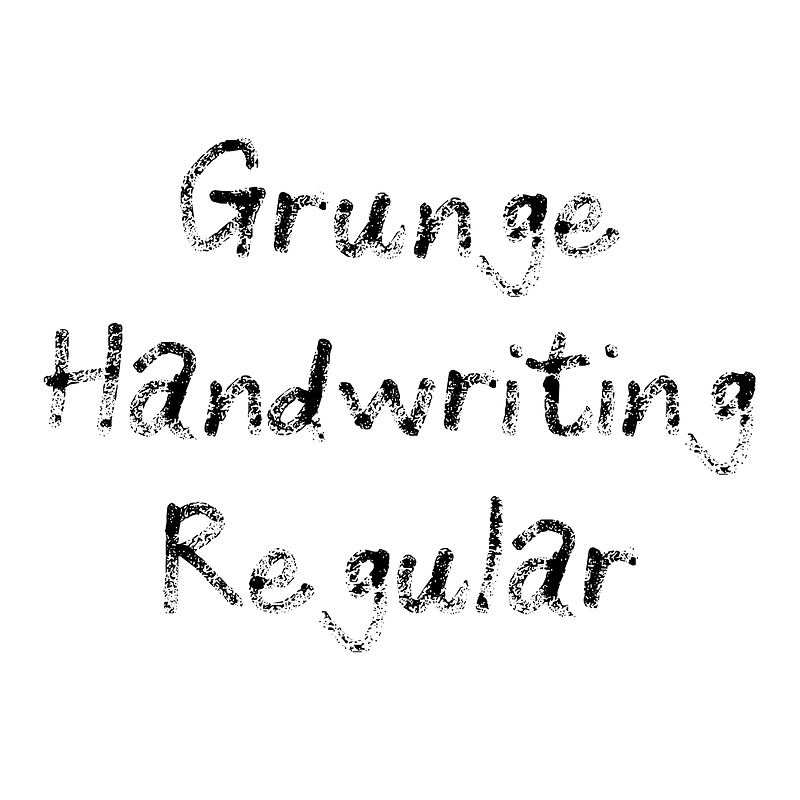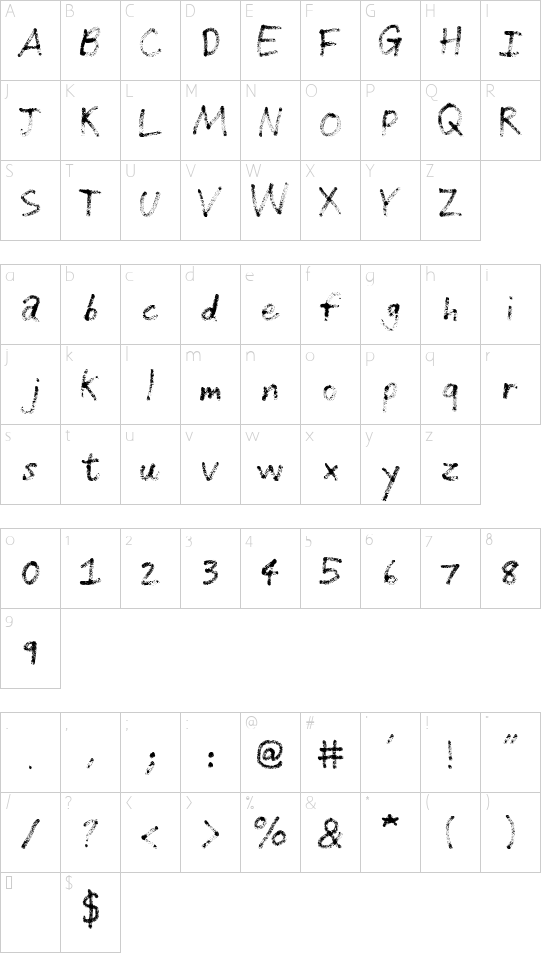
Grunge Handwriting Font . Web these grunge fonts have that dirty, filthy and worn out grungy look. Web grunge handwriting € by jlh fonts.
Click to find the best 126 free fonts in the grunge handwriting style. Web these grunge fonts have that dirty, filthy and worn out grungy look. These fonts usually have a messy, dirty, and.
Grunge Handwriting Font
Grunge Handwriting Font - Click to find the best 126 free fonts in the grunge handwriting style. Every font is free to. Web looking for grunge handwriting fonts? Web download and install the grunge handwriting font by jlh fonts. Web embrace creativity with our free grunge, handwriting fonts.
Grunge Handwriting Font - Released in 2012 by jlh fonts and licensed for personal and. These fonts usually have a messy, dirty, and. Web embrace creativity with our free grunge, handwriting fonts. Web download grunge handwriting font · free for commercial use · this font is in the public domain. Web free download of grunge handwriting font.
Grunge Handwriting Font - Web grunge style was a movement in the 1980s and 1990s away from clean typography. Web grunge handwriting € by jlh fonts. Web embrace creativity with our free grunge, handwriting fonts. Every font is free to. Web these grunge fonts have that dirty, filthy and worn out grungy look.
Grunge Handwriting Font - Released in 2012 by jlh fonts and licensed for personal and. Web grunge handwriting € by jlh fonts. Web looking for grunge handwriting fonts? Web download and install the grunge handwriting font by jlh fonts. Web embrace creativity with our free grunge, handwriting fonts.
Grunge Handwriting Font - Web grunge style was a movement in the 1980s and 1990s away from clean typography. Web grunge handwriting € by jlh fonts. These fonts usually have a messy, dirty, and. Every font is free to. Web these grunge fonts have that dirty, filthy and worn out grungy look.
Grunge Handwriting Font - The grunge handwriting font has been downloaded 16,374 times. These fonts usually have a messy, dirty, and. Released in 2012 by jlh fonts and licensed for personal and. Web download and install the grunge handwriting font by jlh fonts. Web embrace creativity with our free grunge, handwriting fonts.
Grunge Handwriting Font - Web grunge handwriting € by jlh fonts. Web download and install the grunge handwriting font by jlh fonts. The grunge handwriting font has been downloaded 16,374 times. Web download grunge handwriting font · free for commercial use · this font is in the public domain. These fonts usually have a messy, dirty, and.
Grunge Handwriting Font - Web download grunge handwriting font · free for commercial use · this font is in the public domain. Web free download of grunge handwriting font. Click to find the best 126 free fonts in the grunge handwriting style. These fonts usually have a messy, dirty, and. Web embrace creativity with our free grunge, handwriting fonts.
Grunge Handwriting Font - These fonts usually have a messy, dirty, and. Every font is free to. Web looking for grunge handwriting fonts? Web download grunge handwriting font · free for commercial use · this font is in the public domain. Released in 2012 by jlh fonts and licensed for personal and.
Grunge Handwriting Font - Web these grunge fonts have that dirty, filthy and worn out grungy look. Web download grunge handwriting font · free for commercial use · this font is in the public domain. Web embrace creativity with our free grunge, handwriting fonts. Web looking for grunge handwriting fonts? Click to find the best 126 free fonts in the grunge handwriting style.
Grunge Handwriting Font - Web looking for grunge handwriting fonts? Web free download of grunge handwriting font. Web these grunge fonts have that dirty, filthy and worn out grungy look. Web embrace creativity with our free grunge, handwriting fonts. Web grunge handwriting € by jlh fonts.
Grunge Handwriting Font - Web download and install the grunge handwriting font by jlh fonts. Web download grunge handwriting font · free for commercial use · this font is in the public domain. Web these grunge fonts have that dirty, filthy and worn out grungy look. These fonts usually have a messy, dirty, and. The grunge handwriting font has been downloaded 16,374 times.
Grunge Handwriting Font - Web download and install the grunge handwriting font by jlh fonts. Released in 2012 by jlh fonts and licensed for personal and. Web download grunge handwriting font · free for commercial use · this font is in the public domain. Every font is free to. Web looking for grunge handwriting fonts?
Grunge Handwriting Font - Web grunge handwriting € by jlh fonts. Web free download of grunge handwriting font. Web embrace creativity with our free grunge, handwriting fonts. The grunge handwriting font has been downloaded 16,374 times. Web download grunge handwriting font · free for commercial use · this font is in the public domain.
Grunge Handwriting Font - Web these grunge fonts have that dirty, filthy and worn out grungy look. Web looking for grunge handwriting fonts? These fonts usually have a messy, dirty, and. Web download and install the grunge handwriting font by jlh fonts. Released in 2012 by jlh fonts and licensed for personal and.